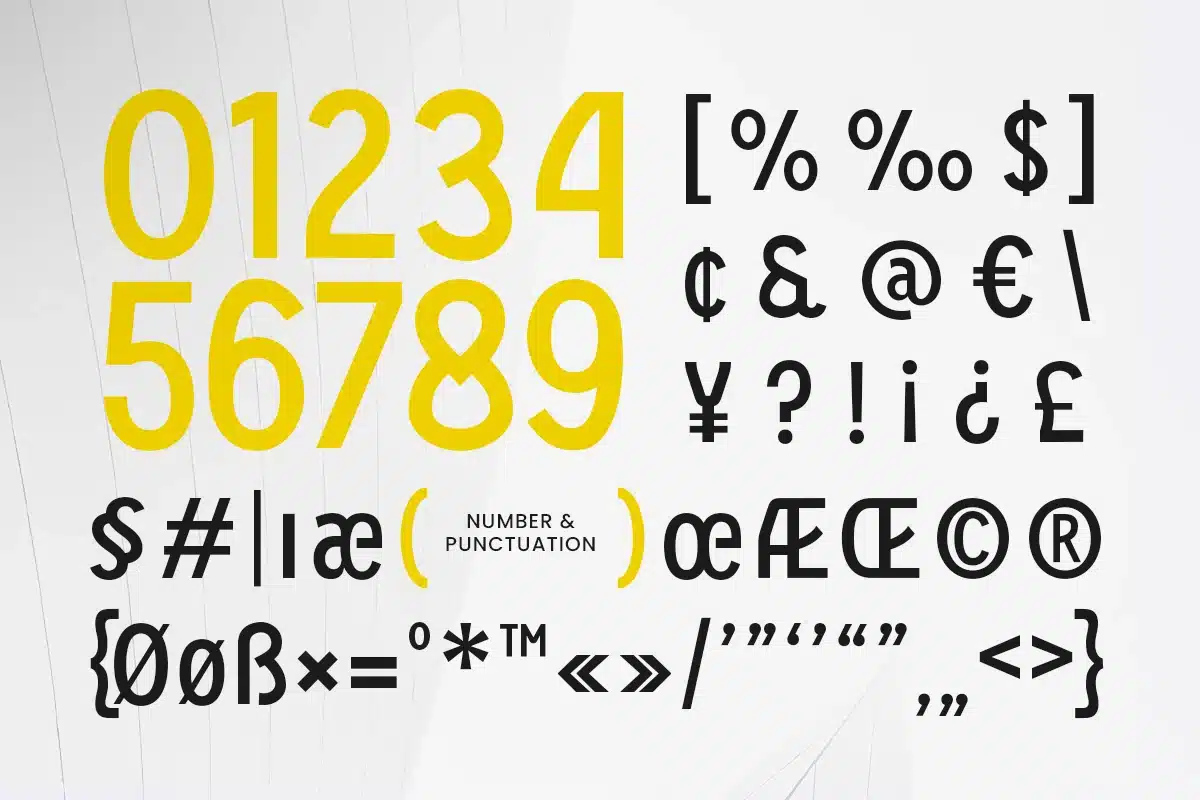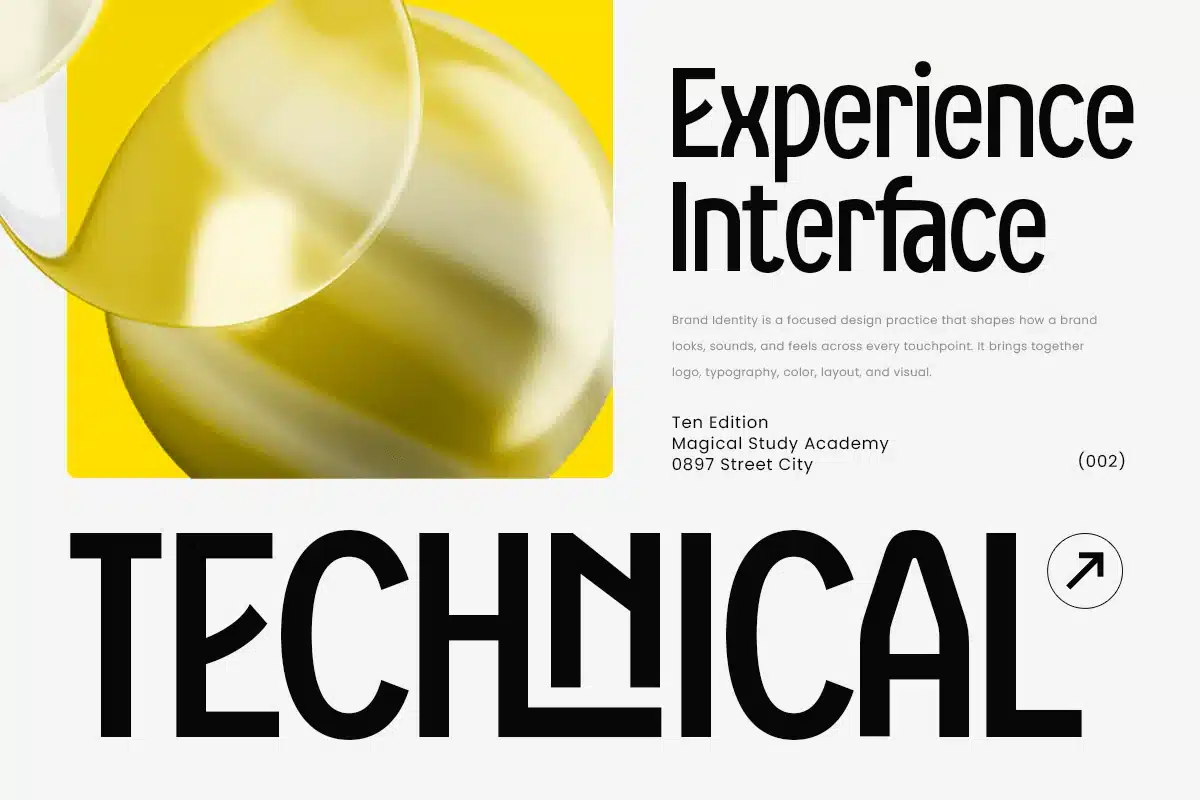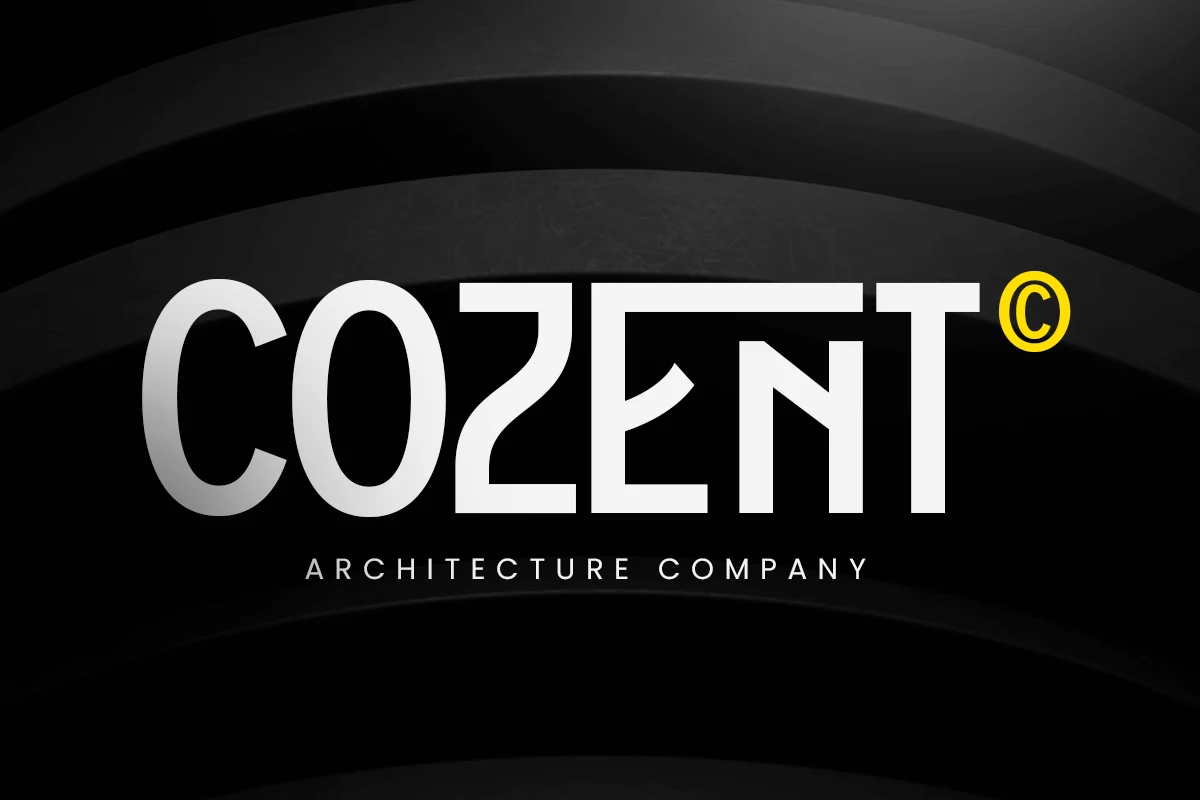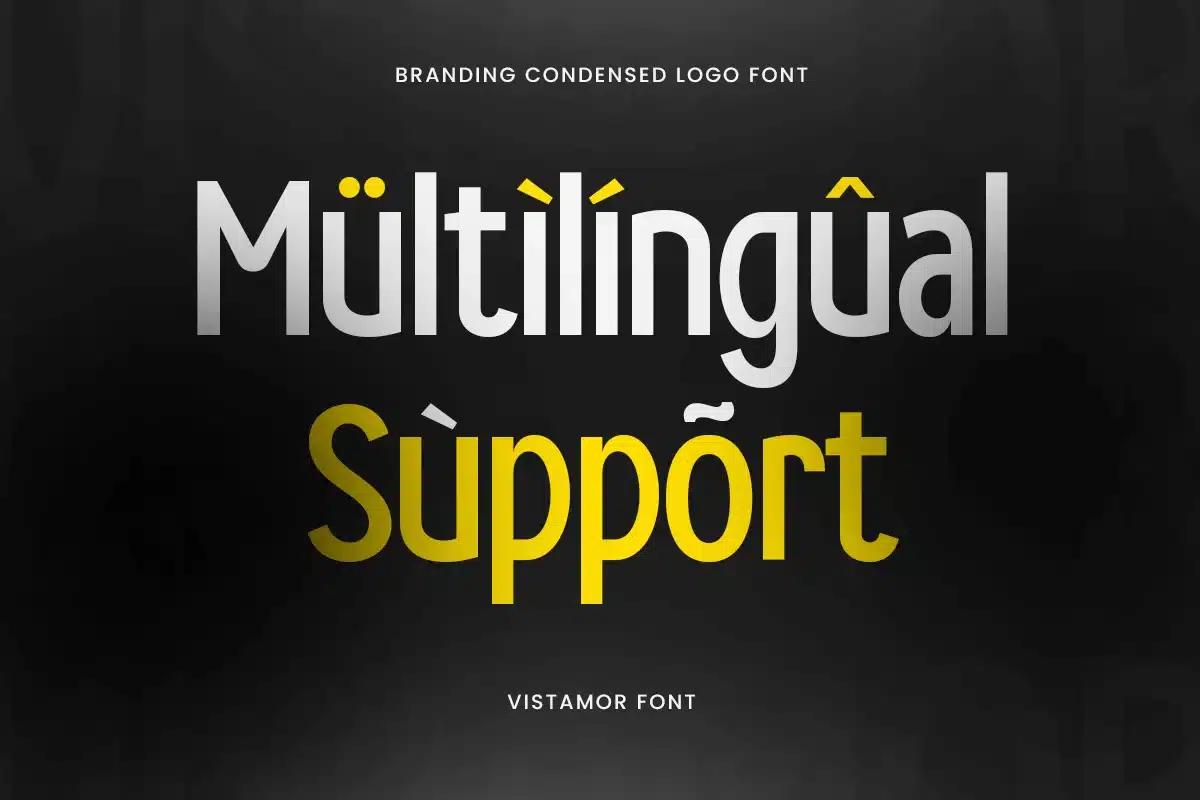
Vistamor – Branding Condensed Logo Font
Vistamor is a branding condensed logo font created to deliver clarity, efficiency, and modern brand confidence. Its tall, narrow proportions give logos and headlines a sharp, professional appearance while keeping layouts clean and space-efficient.
Designed for branding-focused typography, Vistamor works seamlessly across wordmarks, logos, website headers, presentations, posters, signage, packaging, and social media graphics. The condensed structure allows more content to fit comfortably without losing impact, making it ideal for modern identities that value precision and strong visual hierarchy.
Whether you’re building a startup brand, refining a corporate identity, or designing bold headline systems, Vistamor provides a condensed typographic voice that feels contemporary, controlled, and brand-ready across digital and print projects.
Inspiration Behind Vistamor
Vistamor is inspired by modern branding systems and condensed editorial typography—where efficiency, structure, and confidence define visual identity. The font is designed to support clean logo systems and sharp brand communication, helping businesses present a focused, modern image with strong typographic discipline.
Vistamor Font Features
- Condensed letterforms optimized for logo and branding use
- Clean modern structure with strong vertical emphasis
- High readability for headlines and brand statements
- OpenType features for polished professional typesetting
- Logo design and modern brand identity systems
- Wordmarks, headlines, and corporate branding
- Website headers, presentations, and pitch decks
- Posters, signage, and structured promotional layouts
- Social media graphics and digital brand communication
Define a sharp, modern identity with Vistamor—crafted for condensed branding logos with confident visual precision. ✨